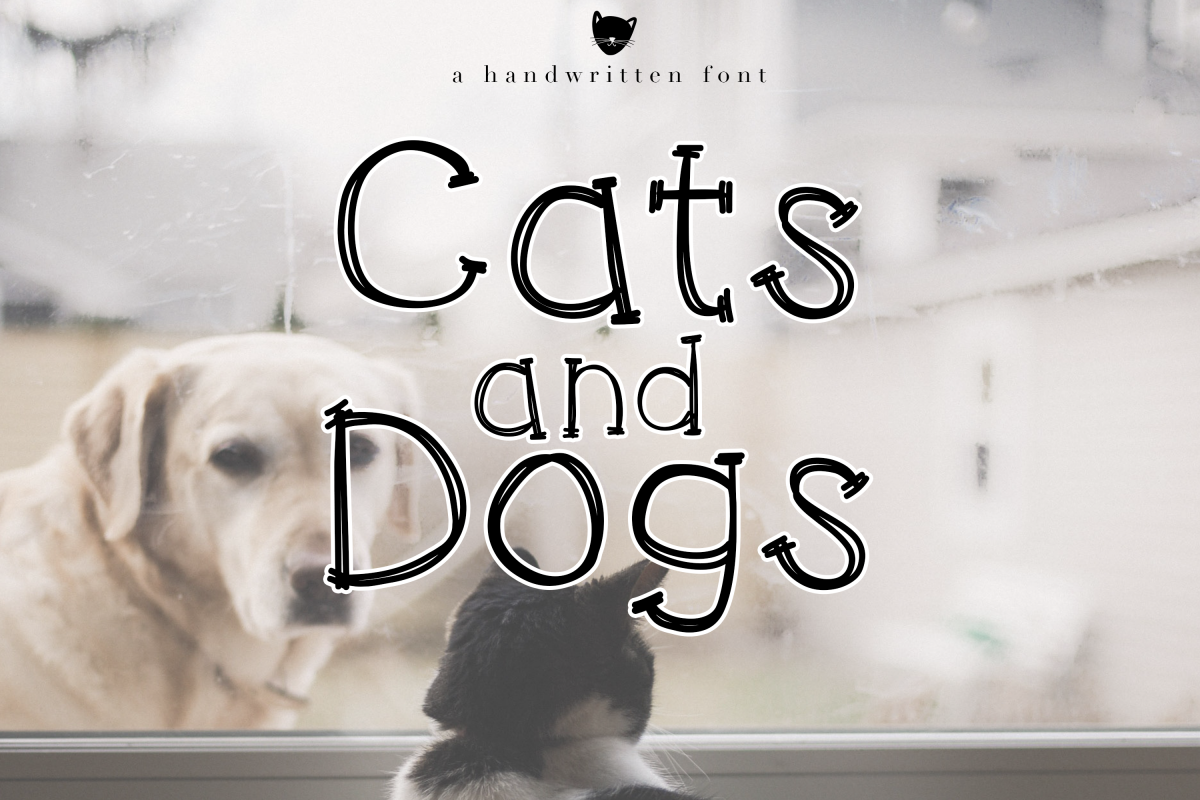
Cats and Dogs - A Cute Handwritten Font
Cats and Dogs is a cute scratchy font.
The letters are big, bold and unique!
This font is perfect for quotes, headings, blogs, logos, invitations and more!